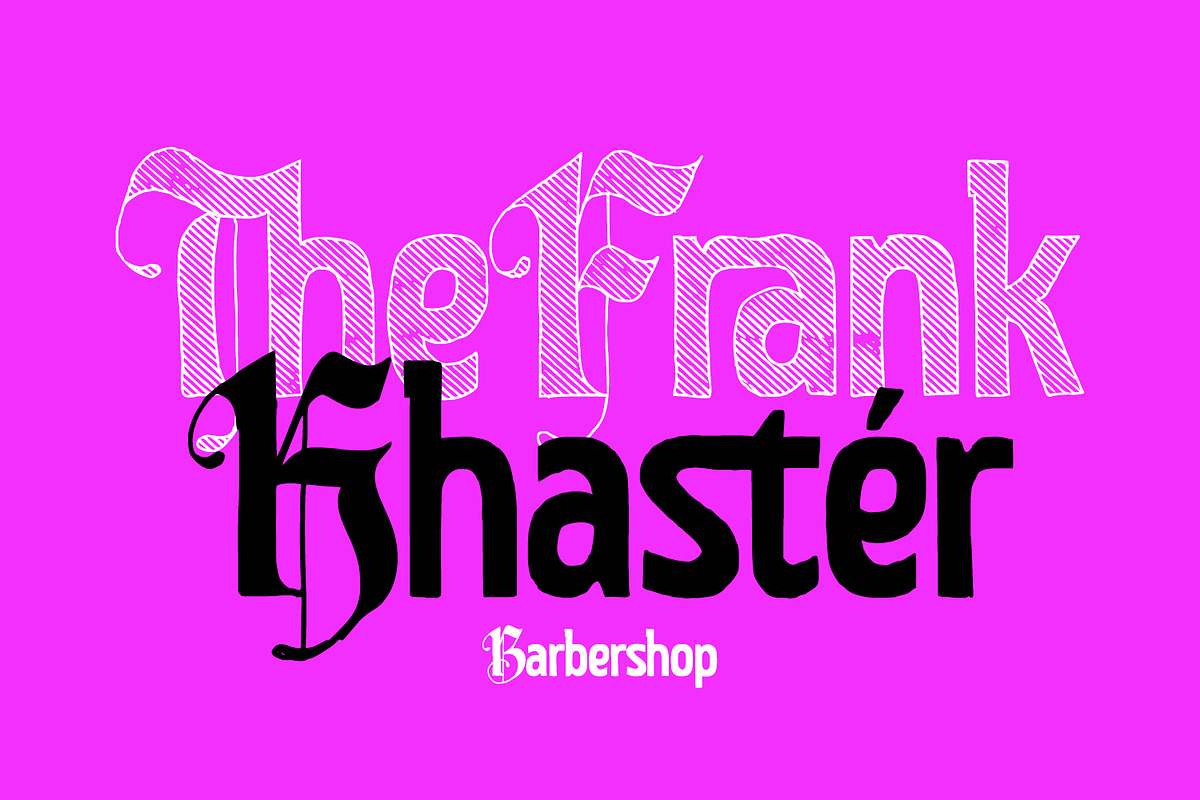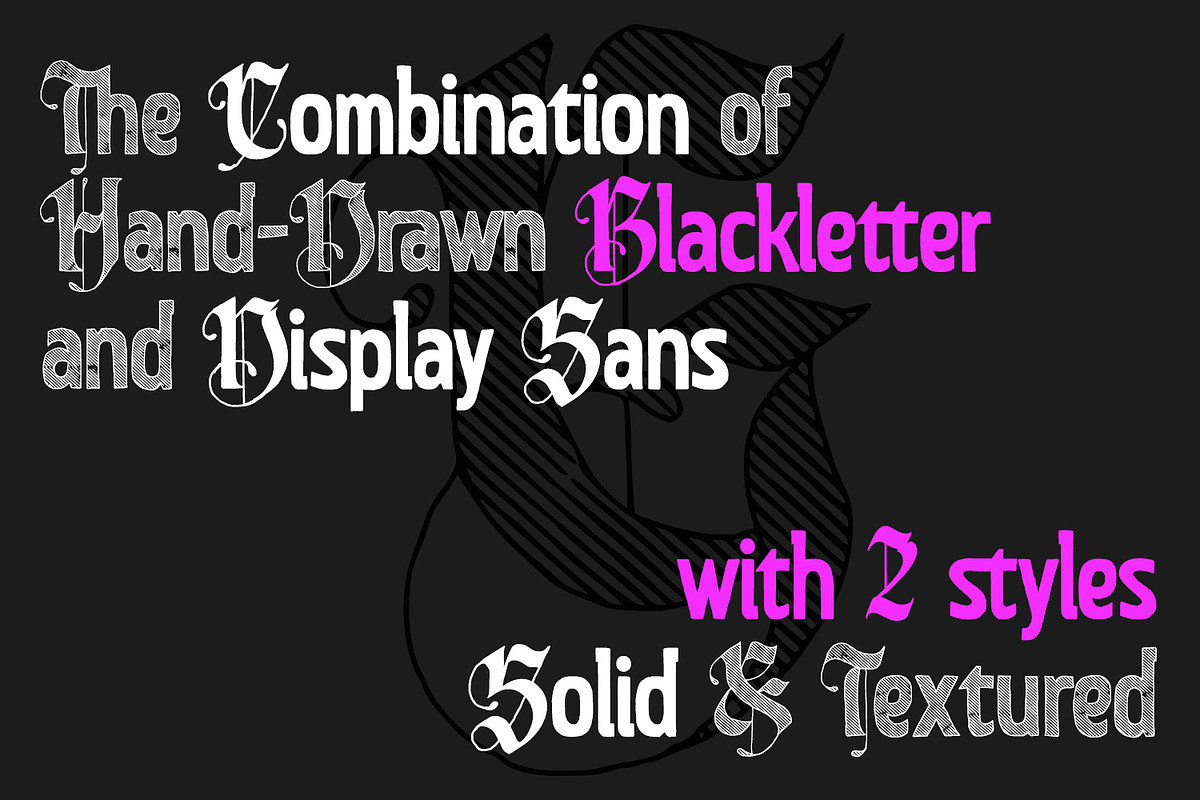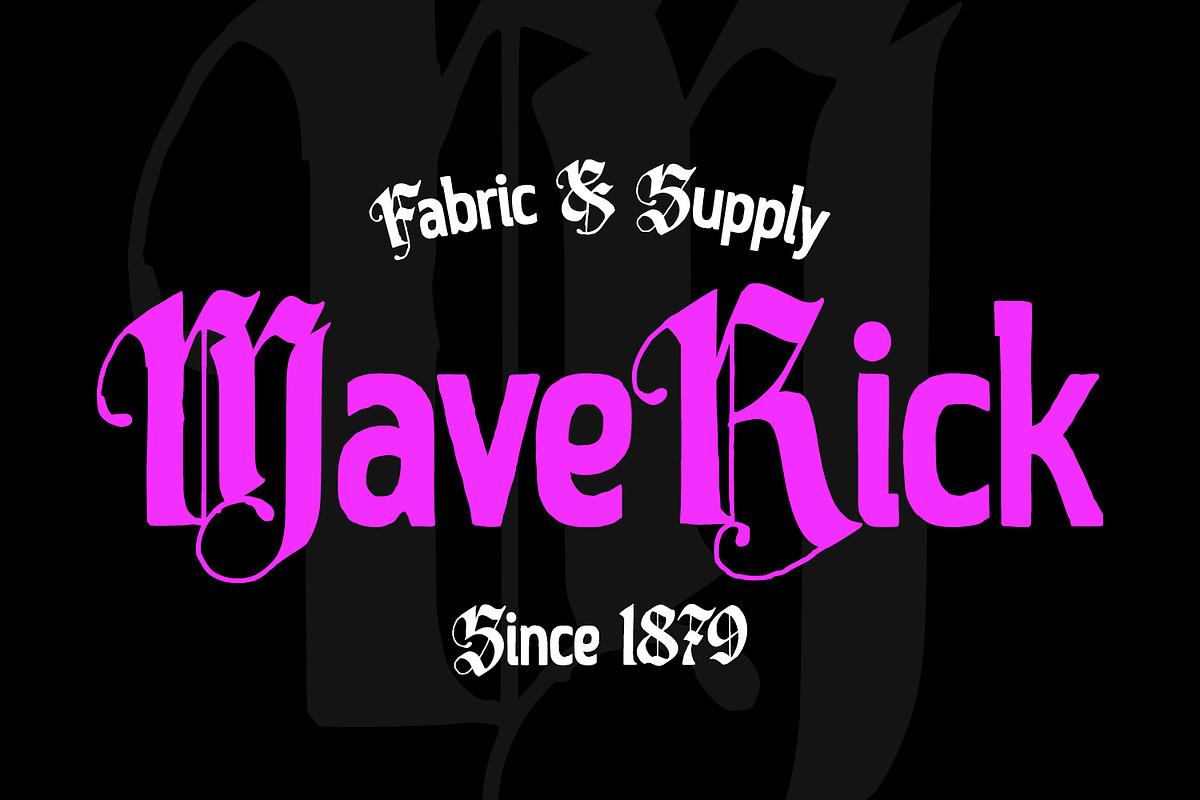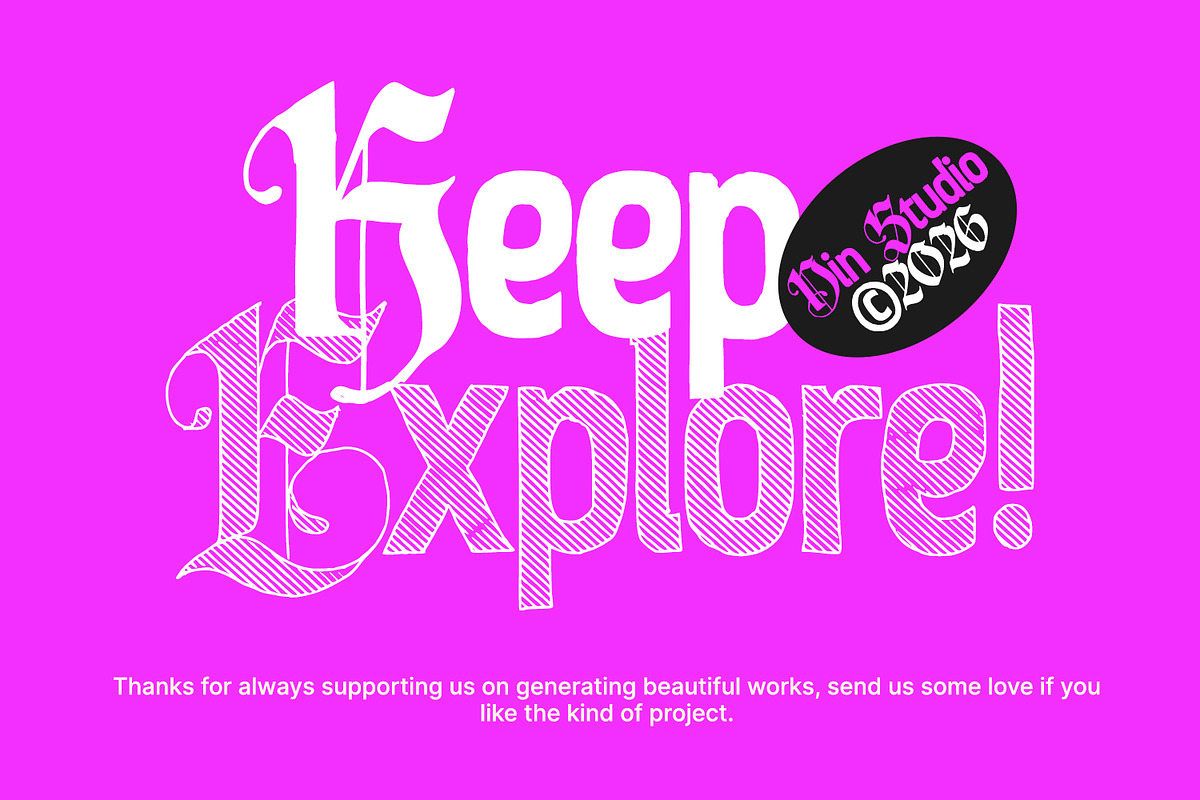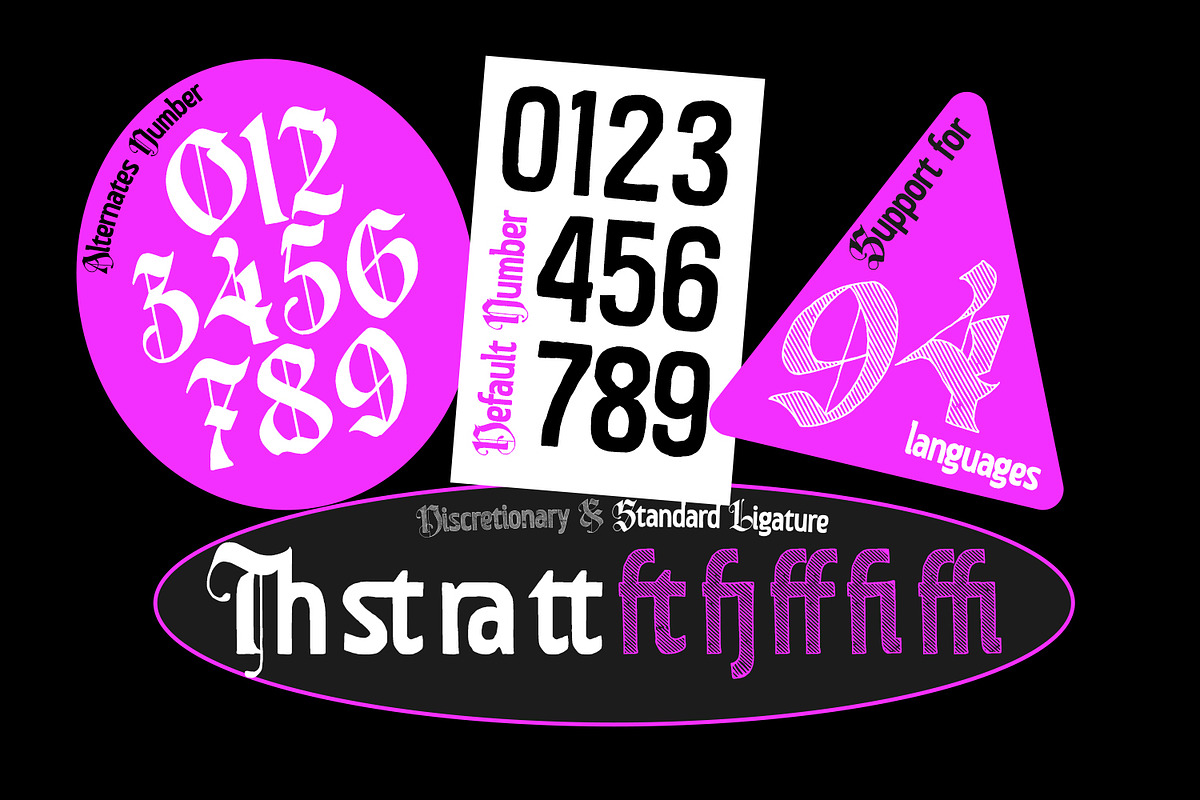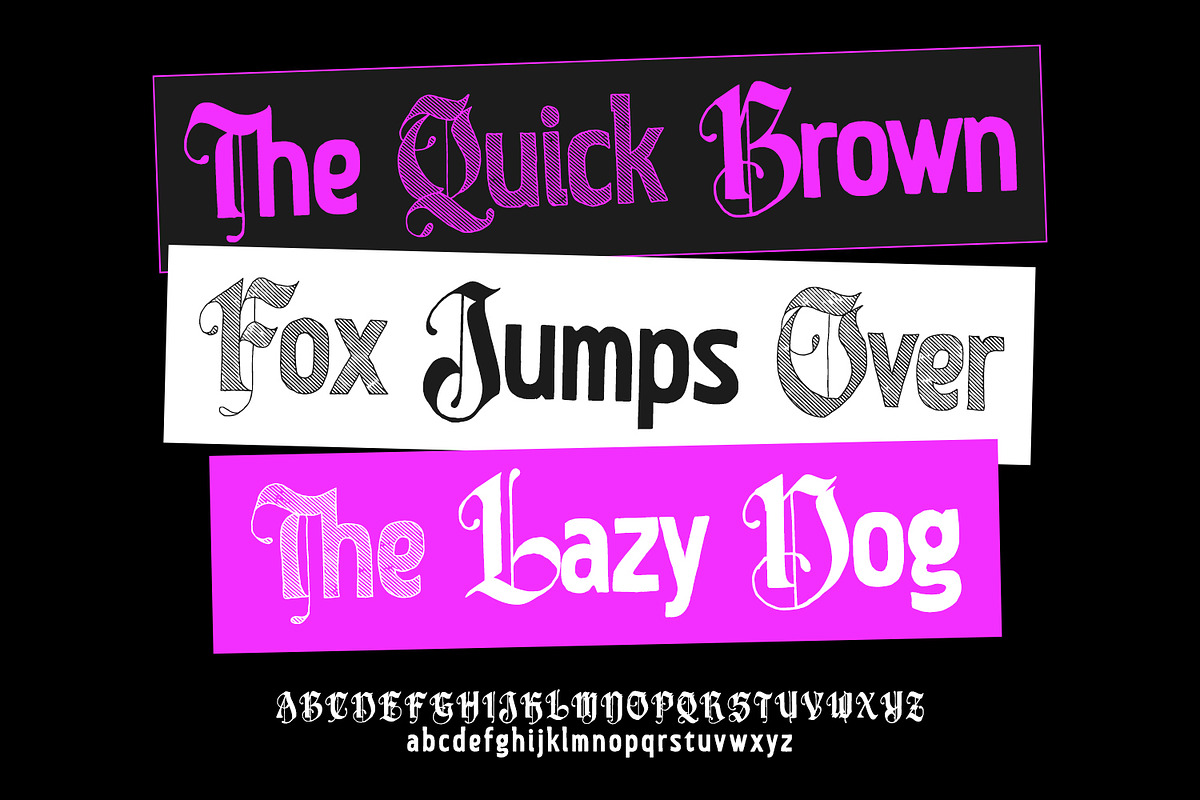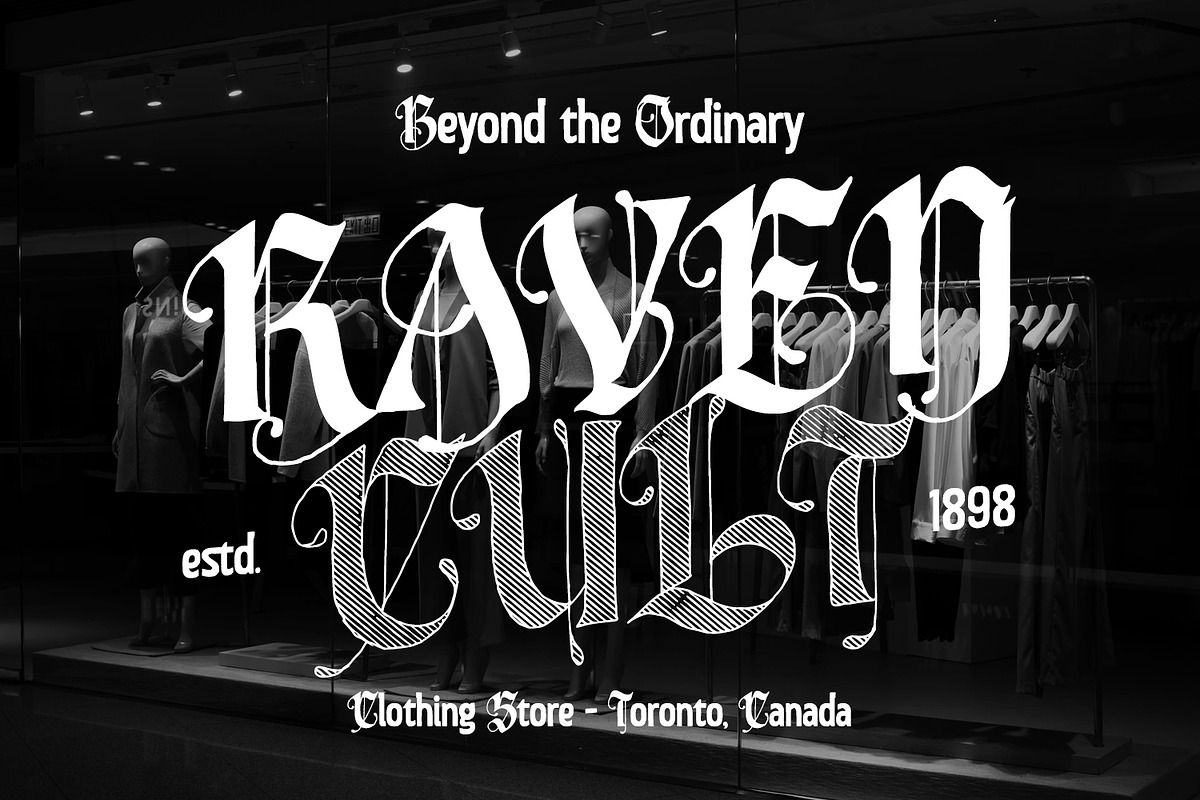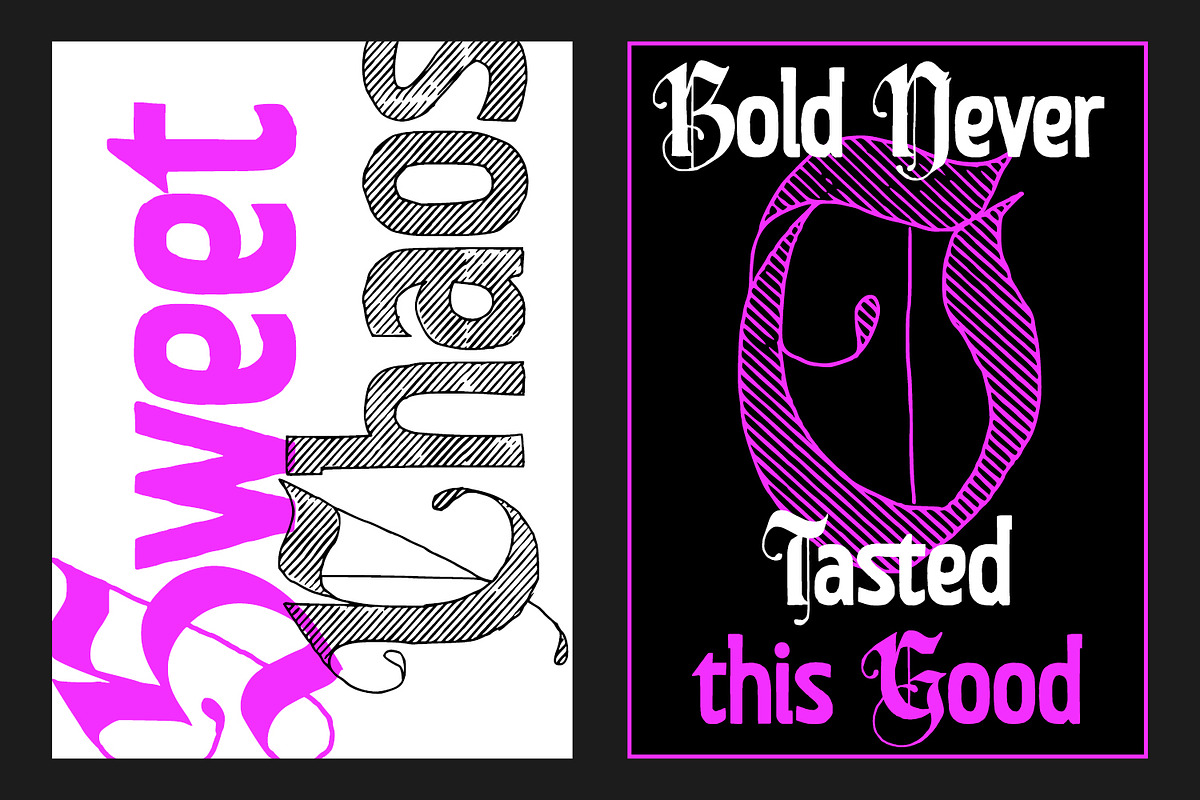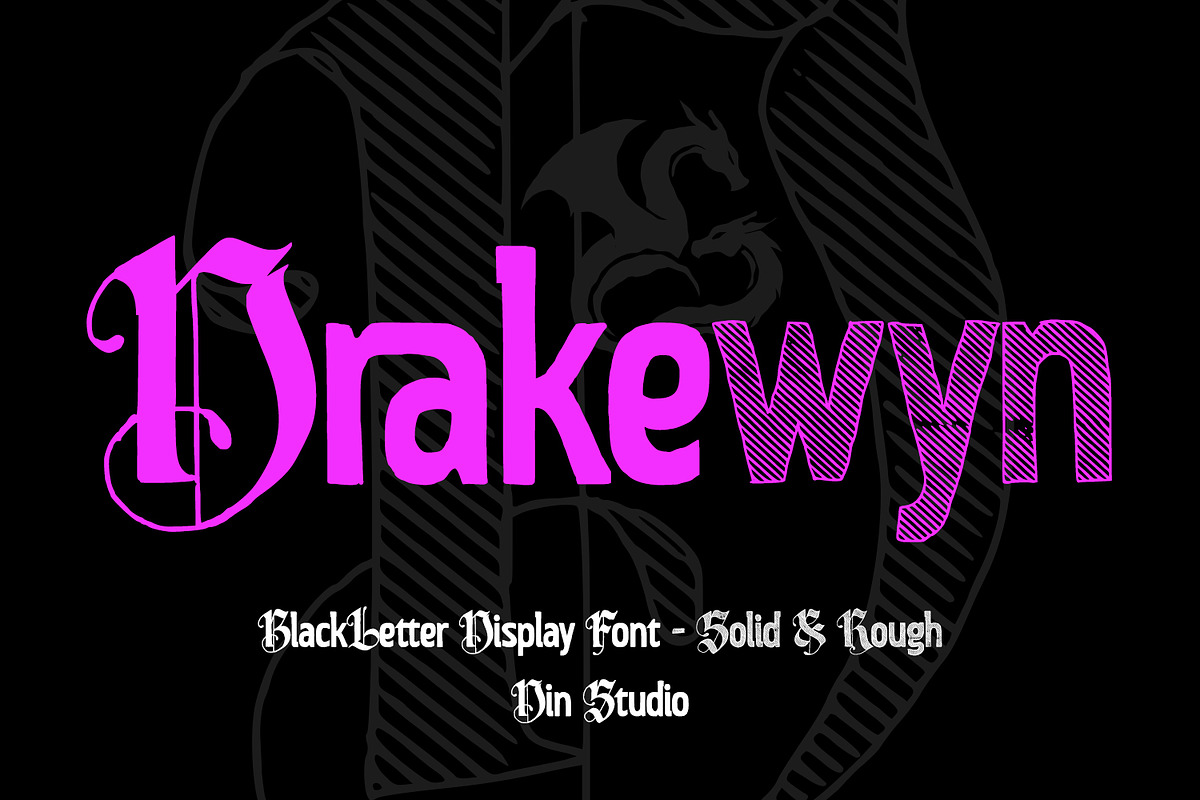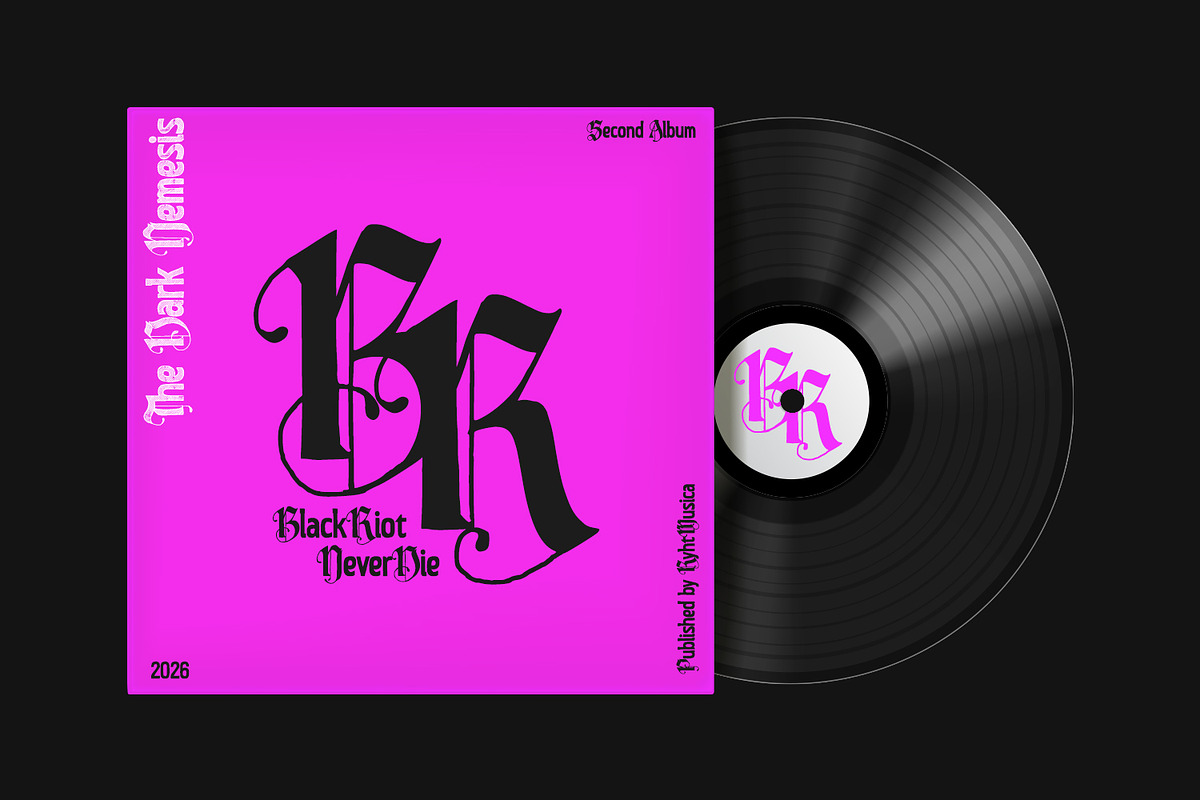
Drakewyn
Drakewyn is a powerful blackletter display font. Designed to make an immediate visual impact, Drakewyn shows strong strokes and distinctive details. What makes Drakewyn especially versatile is its availability in two distinctive versions: Solid and Rough. The Solid version delivers a cleaner and more polished blackletter appearance. Meanwhile, the Rough version introduces a distressed and textured finish, giving your designs a more authentic handcrafted, vintage, and rebellious character. In addition, enjoy the features here.
Multilingual Supports
Numerals and Punctuations
Drakewyn fits in logos, quotes, branding, posters, and many more designs. Find out more ways to use this font by taking a look at the font preview.